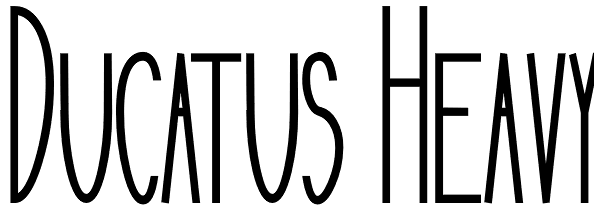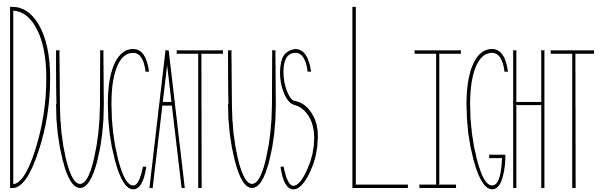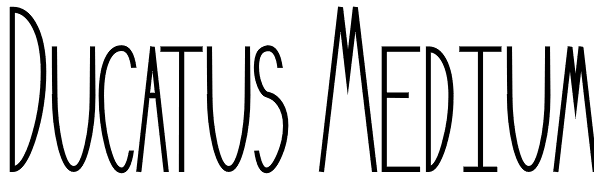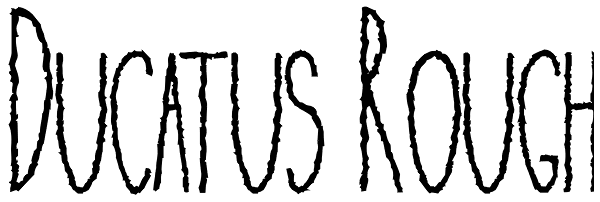
Ducatus
We wanted to make an ultra-thin, tall font with a rough, hand-drawn look and ended up with more than we bargained for. To get the font we wanted we started by developing a source font for the basic letter shapes and we ended up with a whole bunch of...
Ducatus Heavy
Ducatus Light
Ducatus Medium
Ducatus Rough